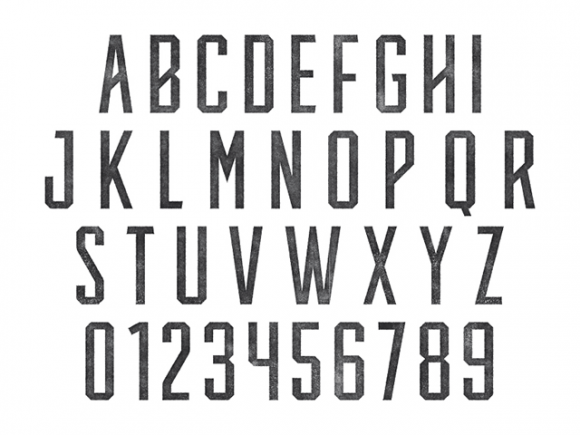
Free Knucklehead Regular Vintage style font
Introducing you to the absolutely beautiful free knucklehead regular vintage style font. Freebies Bug has created this amazing and beautiful free typeface. Easily amaze your audience with this cool font and make your graphic designs pop up from the crowd.